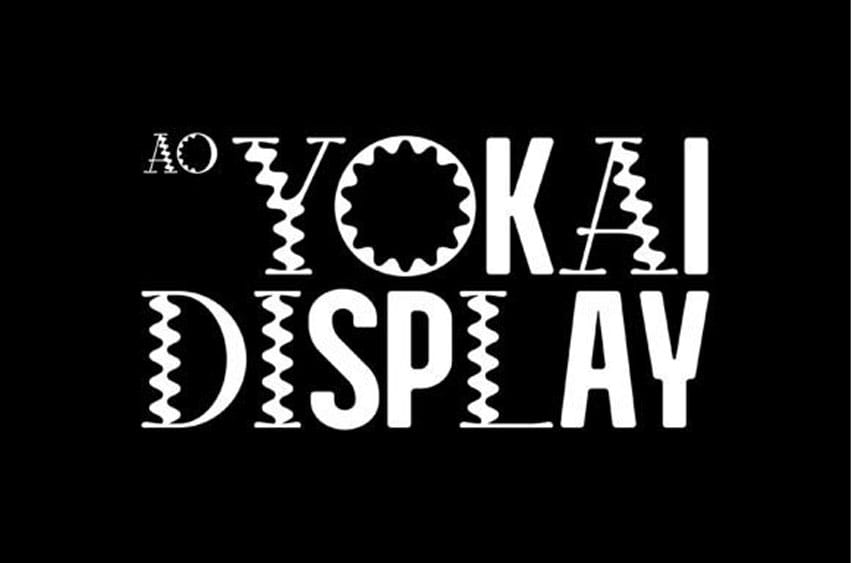
Ao Yokai Font is a two-in-one display typeface, an experimental combination of two different font styles that create a unique look for your design project needs.